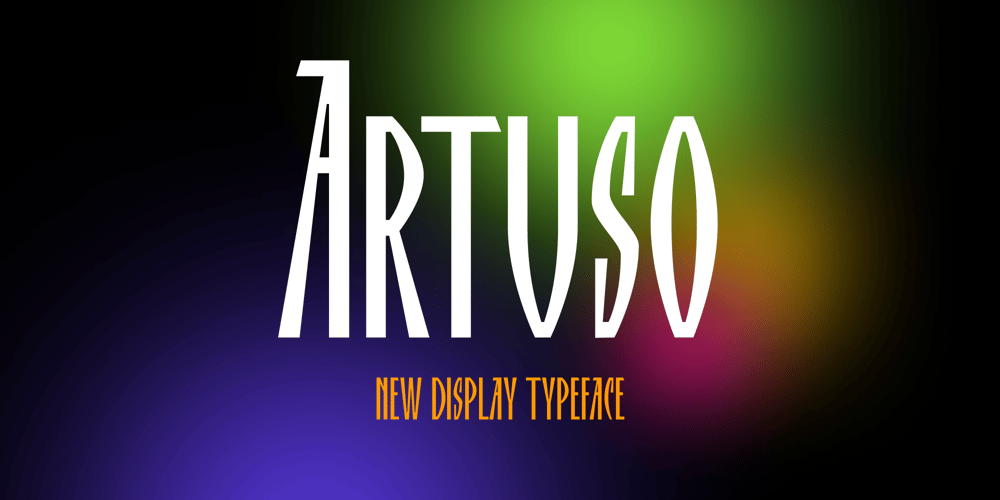
Artuso
Artuso font
Artuso Font Family was designed by Vsevolod Vlasenko and published by Letterhead Studio-VV. Artuso contains 1 styles and family package options. Artuso is a unique condensed typeface, ideal for branding projects and editorials headlines. It Will be a great addition to a modern web or app. The super-tight kerning give this font a distinctive retro feel. A font is a go-to tool for making stand out projects. Artuso has an extended character set to support Central and Eastern European as well as a Western European plus Cyrillic and old Russian letter too.